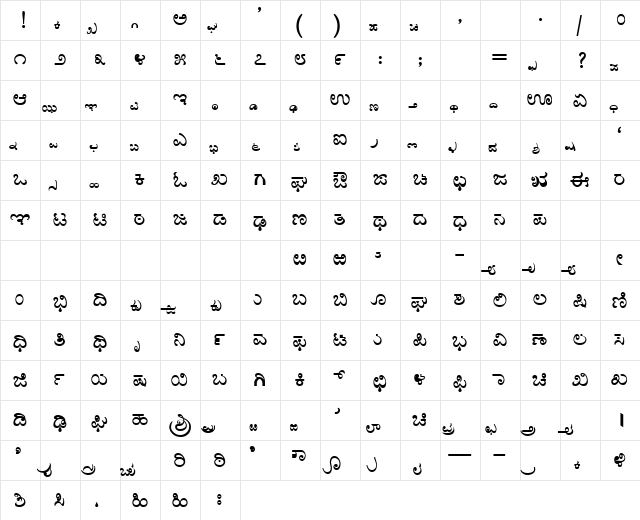
AkrutiKndPadmini Bold Font Preview
AkrutiKndPadmini Bold
AkrutiKndPadmini Bold Font Details
Design Context for AkrutiKndPadmini Typeface
AkrutiKndPadmini takes a measured approach to typography — its balanced proportions and neutral character make it a reliable workhorse for both digital and print work. The heavy weight commands attention and anchors typographic hierarchies.